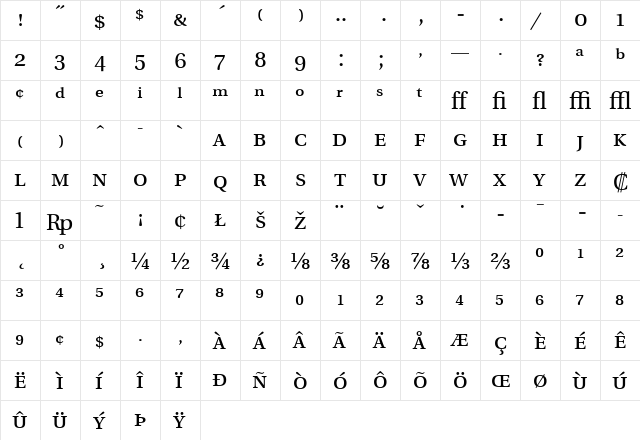
UtopiaExp Regular
Design Context for UtopiaExp Typeface
UtopiaExp is a composed and adaptable typeface that performs quietly and consistently across a wide range of design contexts.